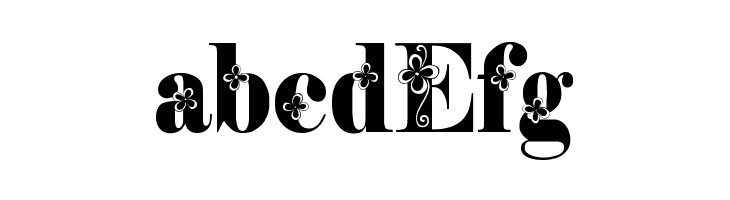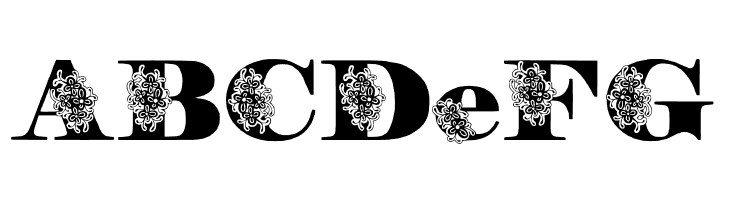
( Fonts by Chequered Ink )
A bold, layered font with a modern and edgy design.
( Fonts by EvasUniqueFonts )
A bold, decorative serif font with floral embellishments.
( Fonts by Didik Pratikno )
Ornamental tile-patterned decorative font.